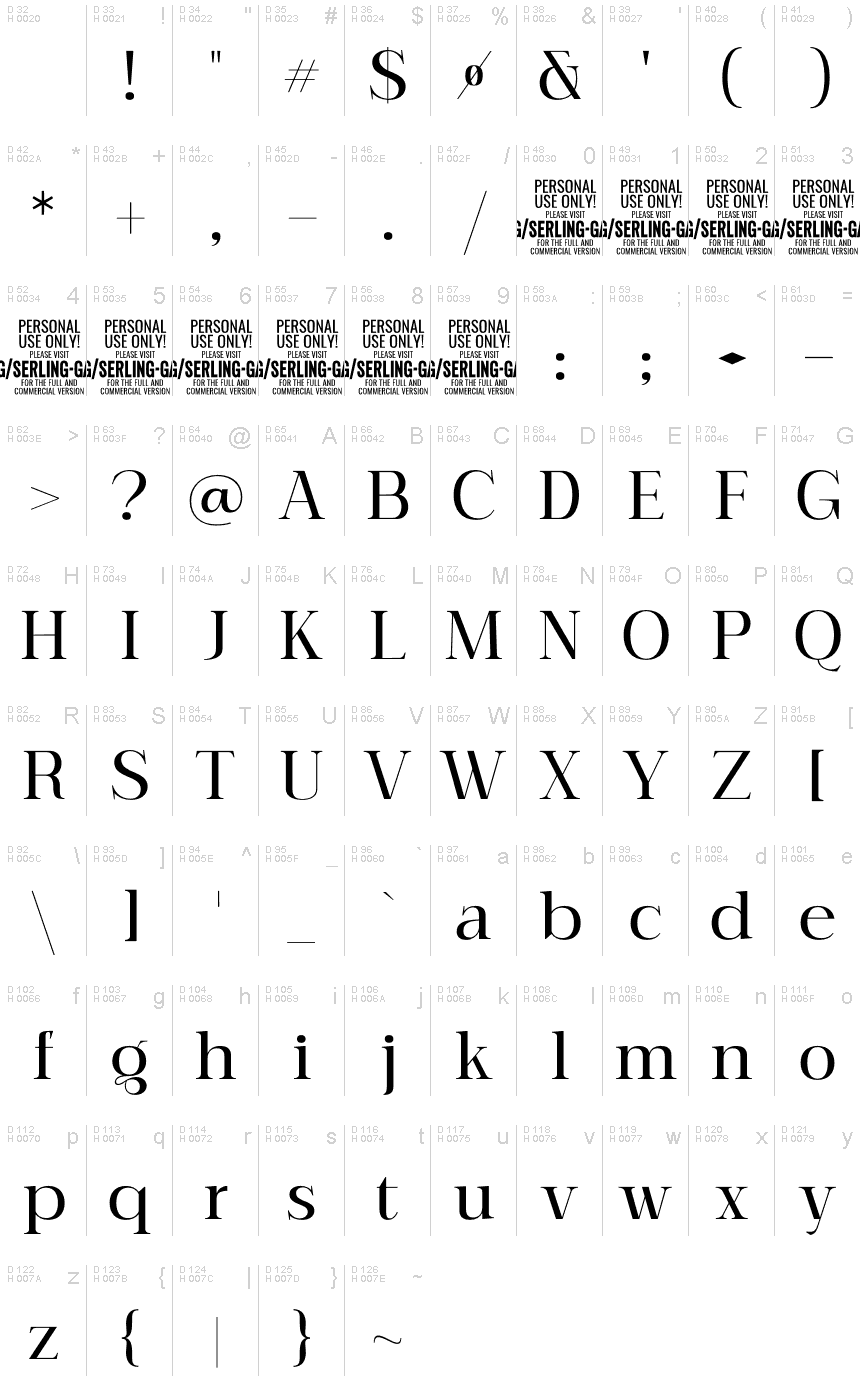
Serling Galleria PERSONAL USE Medium
Serling Galleria Medium is a sophisticated and refined serif font from the renowned designer Mans Greback. Its elegant curves and clean lines make it perfect for projects that require an air of sophistication, such as high-end fashion magazines, luxury brands, or prestigious events. This versatile typeface comes in a medium weight, making it ideal for both body text and headlines. With its classic yet modern style, Serling Galleria Medium is sure to add a touch of elegance to any project it's used on.
Serling Galleria is a classy, classic serif font that exudes an air of fine art and high-end creativity. With its clear, legible letterforms and modernist inventiveness, Serling Galleria brings a touch of strict creativity to your designs, making them stand out in sophistication.